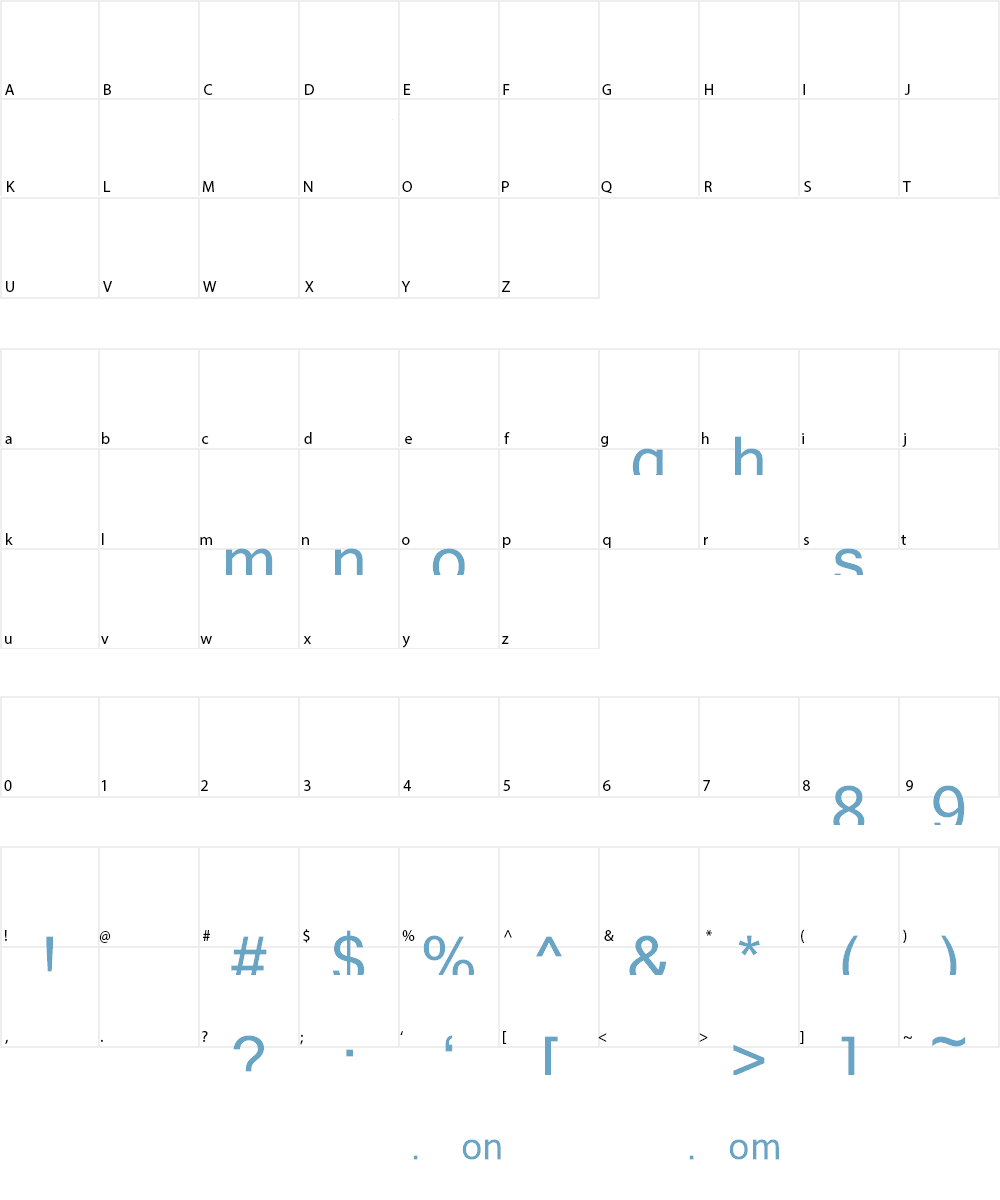
I created this font after I bought the book Zodiac by Robert Graysmith.
The design I used is of my own expertise with fonts. When I first made the font, I was not very experienced. This font is of my own design. I am very good at what I do with fonts now.